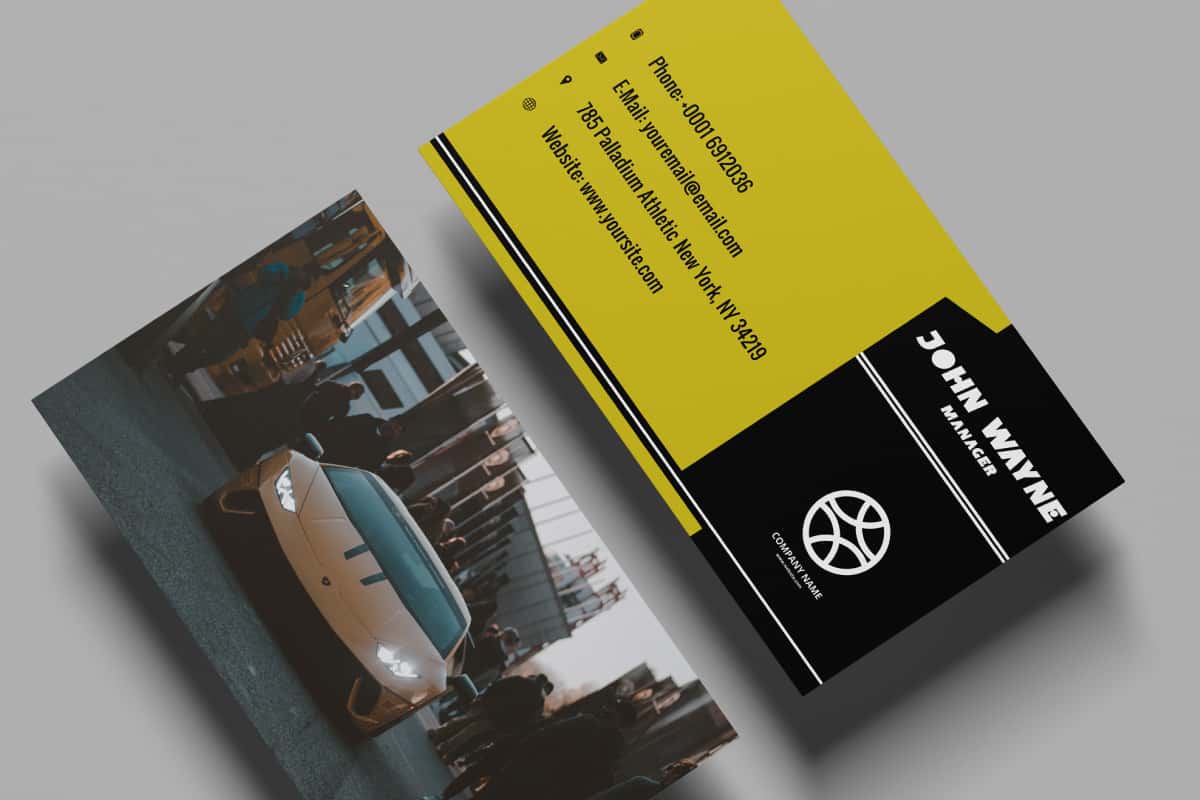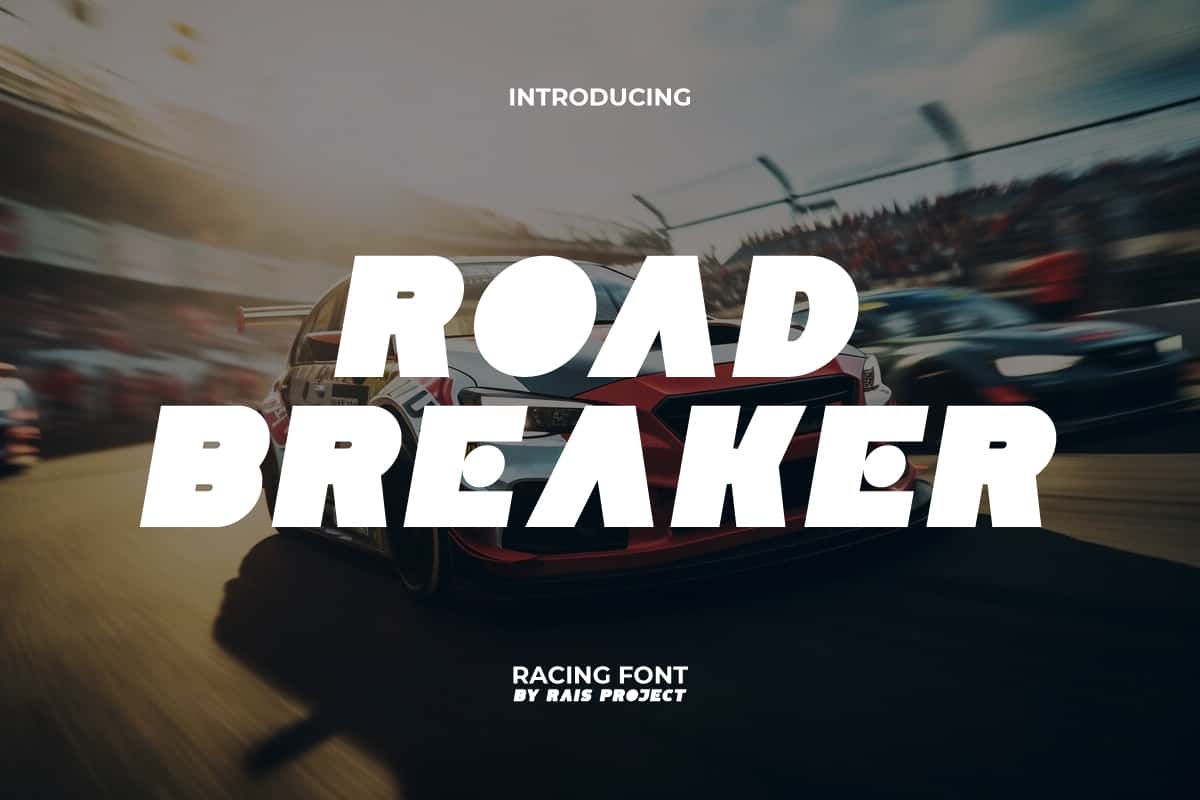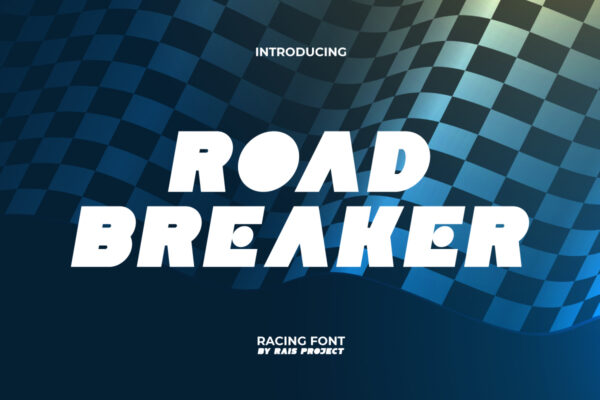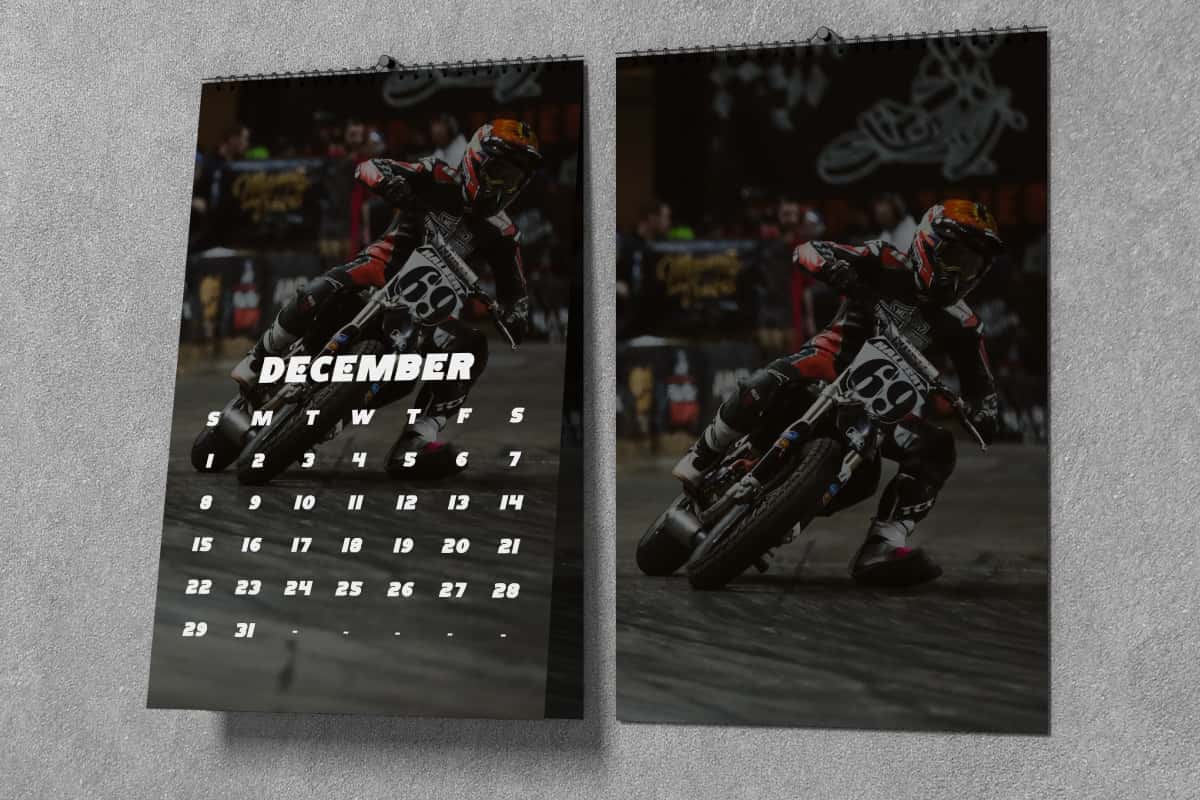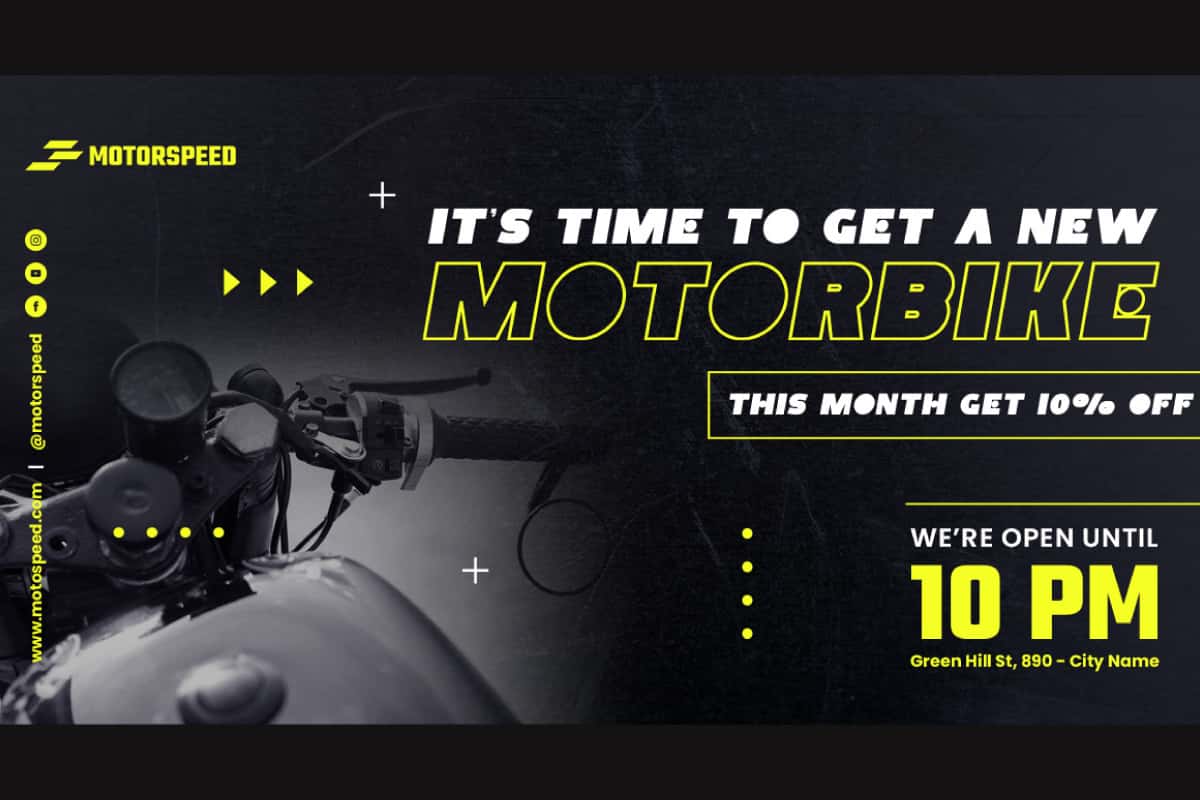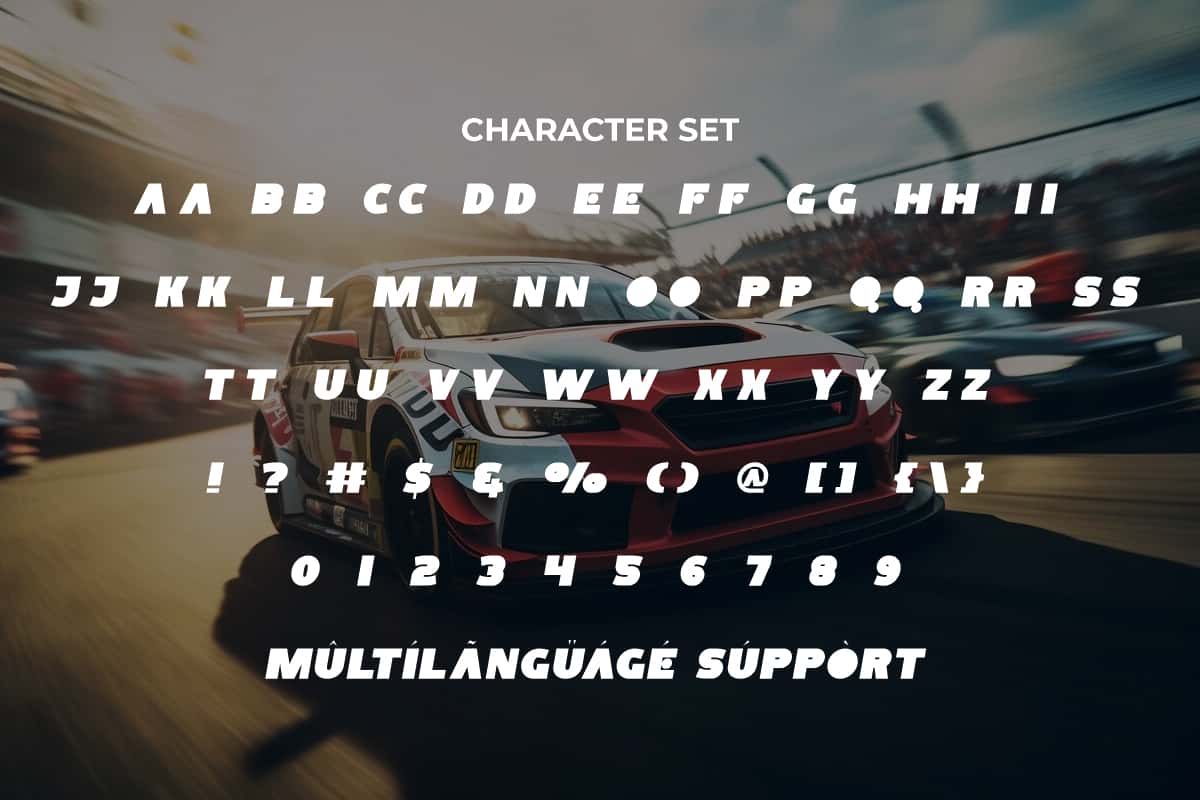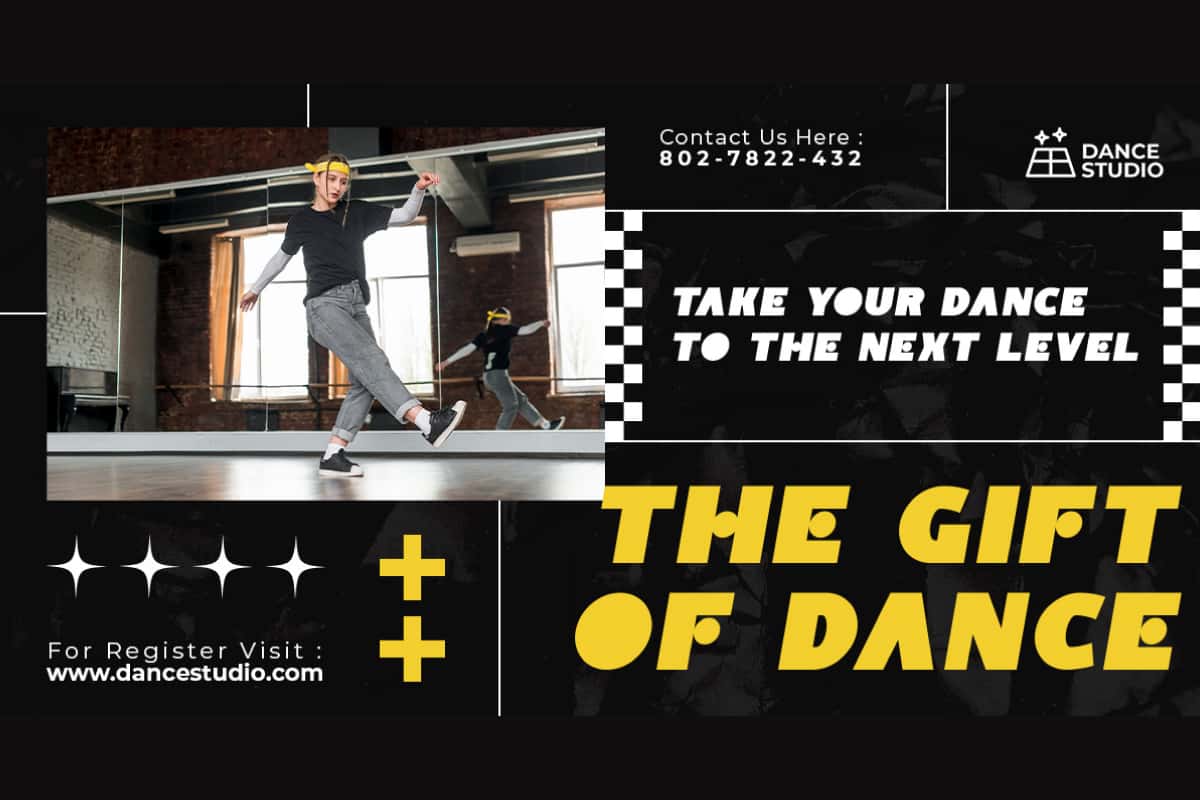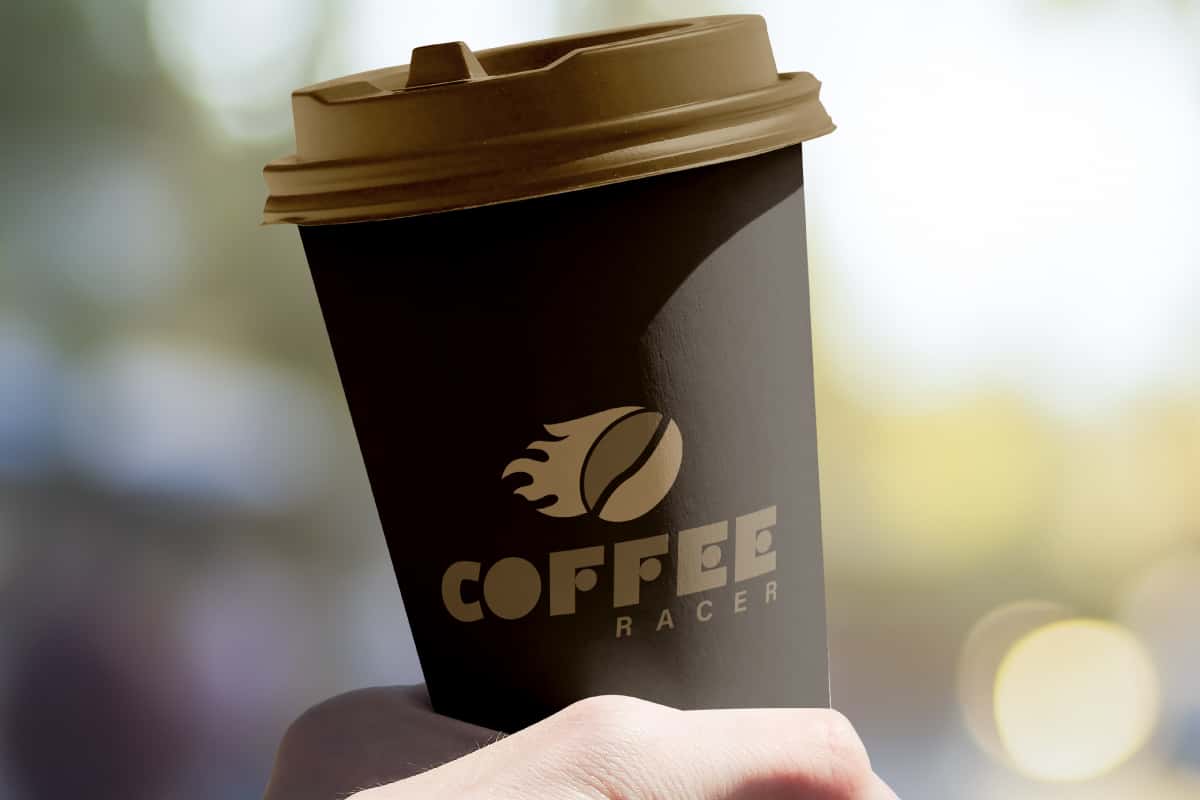
Road Breaker Display Font
Road Breaker Font is a modern style racing font with a unique concept to make your design look more trendy!
Road Breaker Font is a unique bold racing font that can convey an impressive modern charm, by RaisProject. It will be great for poster, label, signage, stationery, custom design, product packaging, quotes, brand image, advertisement, invitation, marketing material, website page, and more!
Introducing Road Breaker Display Font – a bold, rugged, and powerful typeface designed to capture strength, motion, and unstoppable energy. With sharp angles, heavy strokes, and a modern display style, Road Breaker is perfect for projects that demand impact and intensity. Whether you’re designing for sports, racing, gaming, or entertainment, this font ensures your visuals stand out with a fearless edge.
Road Breaker Display Font is built for projects that break boundaries. Its bold design makes it ideal for logos, posters, advertising campaigns, product packaging, and social media graphics. Perfect for industries like motorsports, esports, fitness, and lifestyle brands, Road Breaker conveys confidence and determination in every letterform.
Road Breaker Display Font includes a full set of ALL CAPS for Uppercase and Lowercase Letters, Numerals, and large range of Punctuation. This modern font will be suitable for various industries, such as sports, automotive, fashion, game, barber shop, cafe, event or festival, photography, printing, publishing, etc.